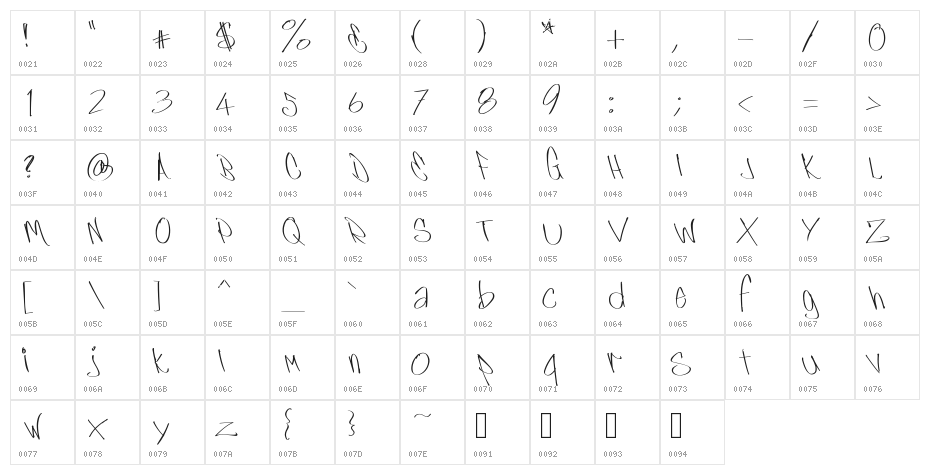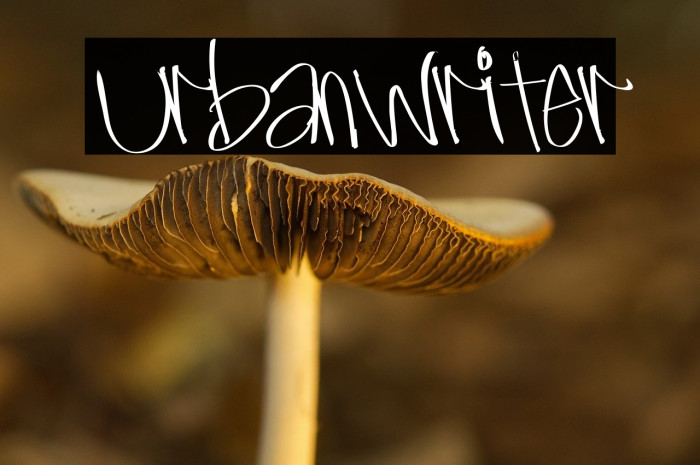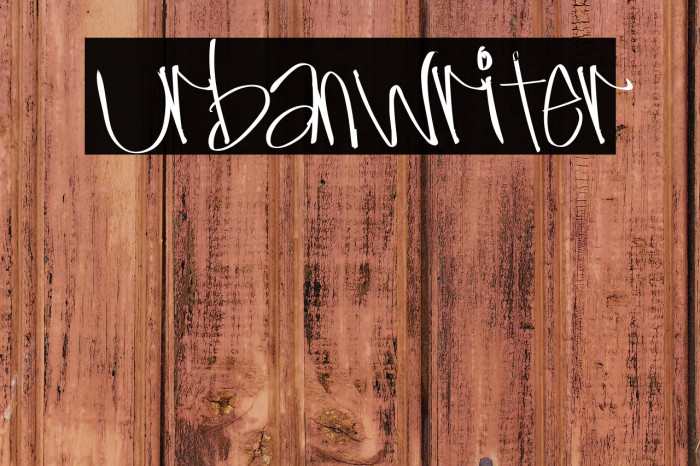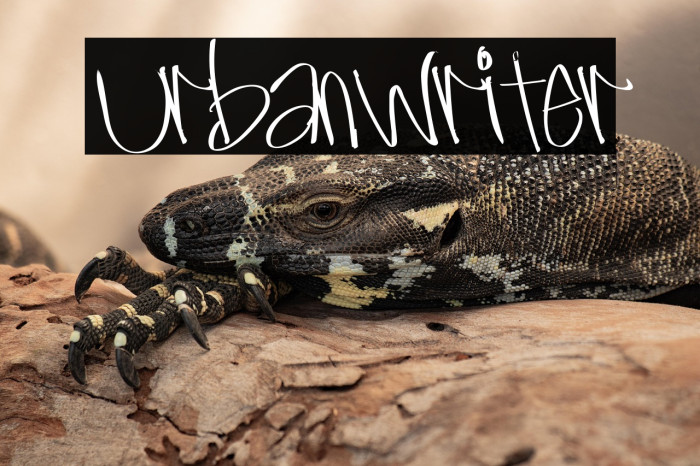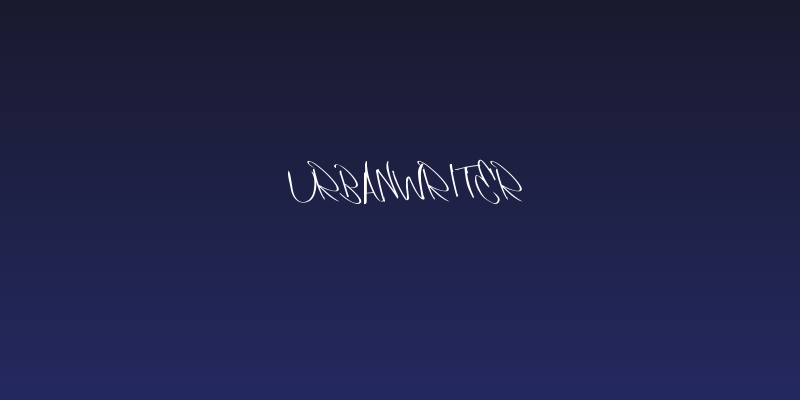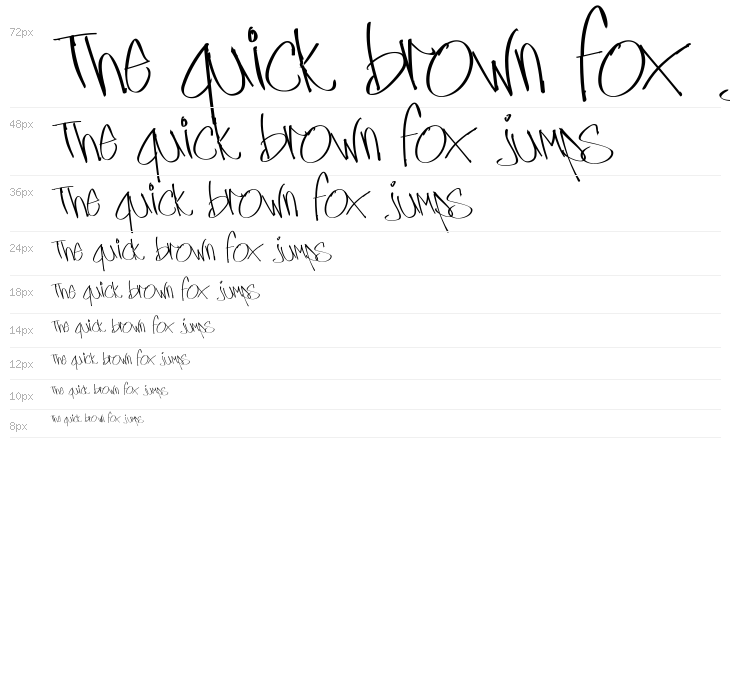
UrbanWriter Font
UrbanWriter Description
This font exudes a dynamic and energetic vibe, characterized by its handwritten style with a modern twist. The letters are elongated and slightly tilted, giving them a sense of movement and fluidity. The strokes are uneven, adding a casual and spontaneous feel. The uppercase and lowercase letters maintain a consistent style, with playful loops and curves. Numbers and special characters follow the same lively pattern, making the font versatile for various creative applications.
| Use Case | Logos, Posters, Creative Branding |
| Proposed Projects | Ideal for urban-themed designs, graffiti art, posters, and creative branding projects. |